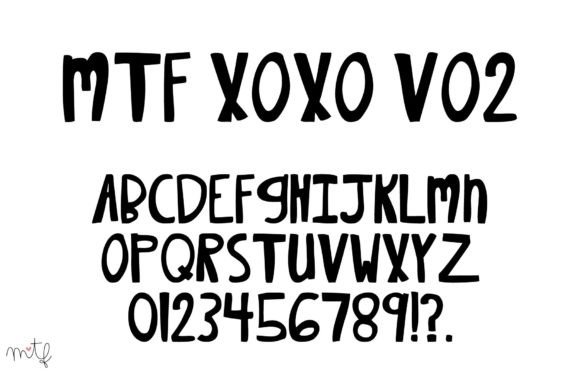
In a realm of digital artistry, behold the Xoxo Vo2 Font, crafted by the visionary Miss Tiina, a name synonymous with brilliance in the typography universe. This display font is not just a collection of characters; it's a gateway to a world of captivating designs and limitless creativity.
Slip into the world of Xoxo Vo2, where each letter dances with its own unique rhythm, exuding mischief and charm that will make your designs come alive. Crafted with the utmost precision, this font whispers tales of uniqueness, tempting you to break free from the ordinary and embrace the extraordinary.
Whether you're a seasoned designer or a budding creator, Xoxo Vo2 is your key to unleashing a whirlwind of possibilities. Its quirky nature and modern flair will transform your designs into masterpieces that captivate and intrigue your audience. Embrace the uneven edges and delightful curves that breathe life into this font, evoking a sense of playfulness and lightheartedness.
Let Xoxo Vo2 ignite the spark of inspiration within you. Dive into a world where imagination knows no bounds, where words dance off the page with elegance and flair. From eye-catching logos to captivating posters, from enchanting invitations to remarkable social media graphics, Xoxo Vo2 will elevate your creations to new heights.
Indulge in the beauty of this font, let its story unfold before your eyes, and prepare to be mesmerized by the magic it weaves. With Xoxo Vo2, the ordinary becomes extraordinary, the mundane transforms into the marvelous. Enhance your designs, ignite your creativity, and let your imagination soar with this font that's as unique and captivating as you are.